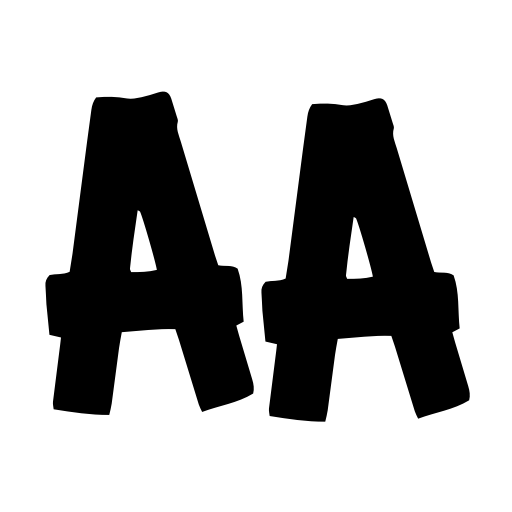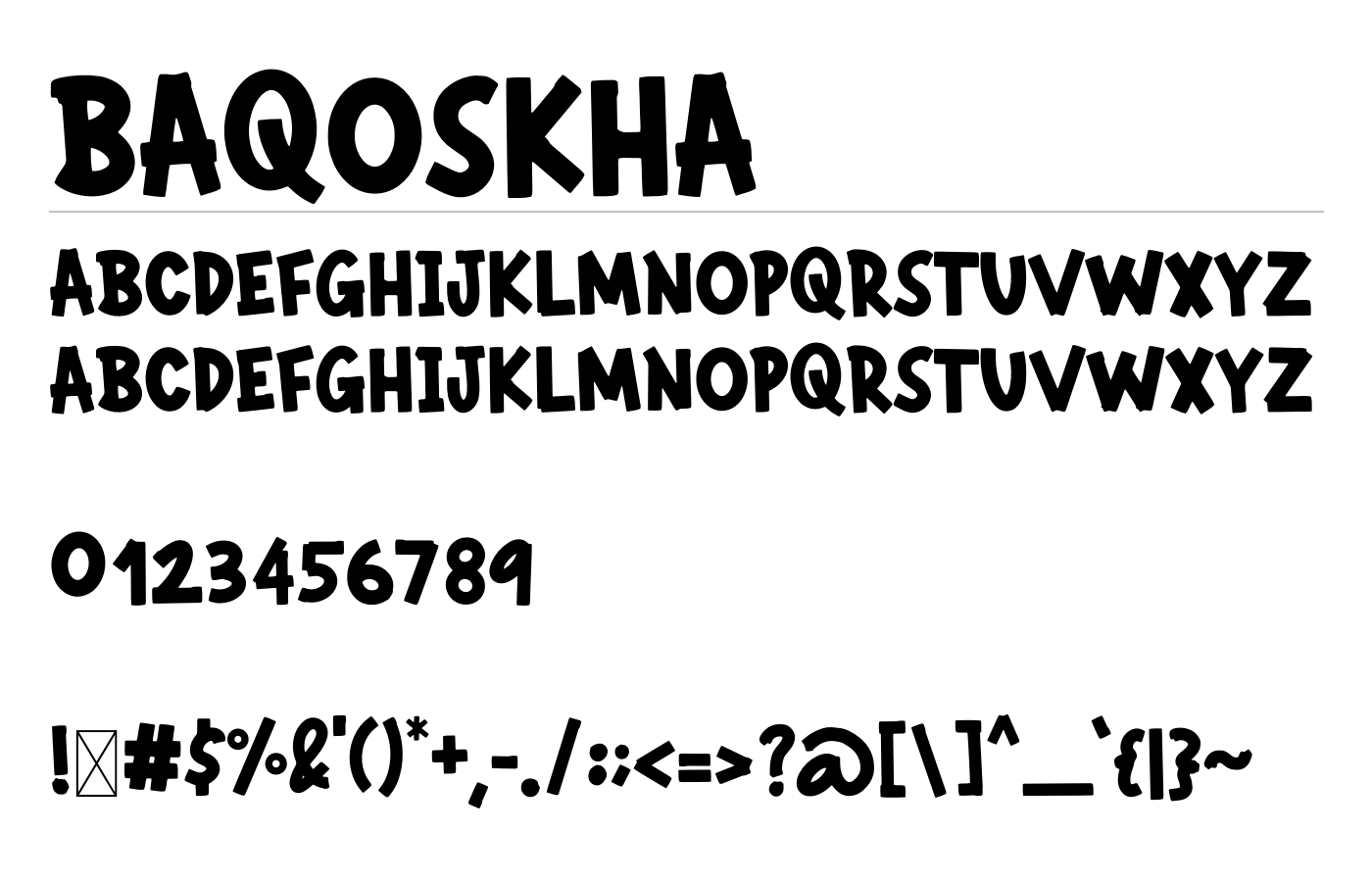
BAQOSKHA is a bold, playful sans serif font with a friendly, hand-drawn feel that combines slightly irregular letter shapes with a chunky, solid weight. Its casual and energetic style makes it great for fun and informal designs like children’s books, posters, or branding that seeks a warm, approachable vibe. This font works best in headlines and display text, where its quirky personality can shine and grab attention.
BAQOSKHA Font
About BAQOSKHA Font